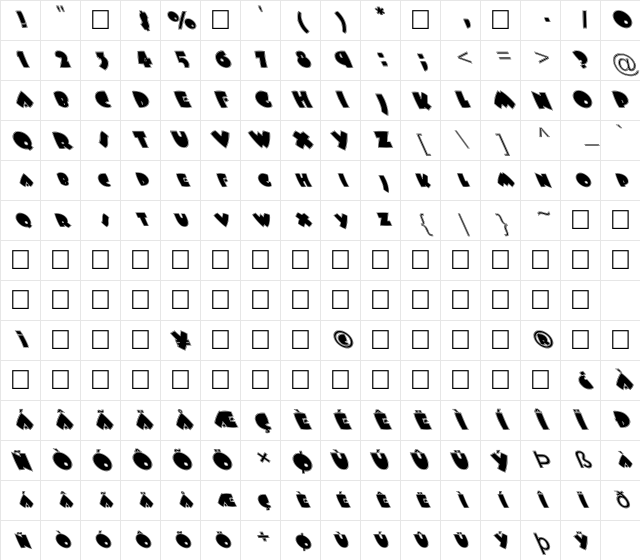
FZ JAZZY 9 CONTOUR LEFTY Normal
Complete FZ JAZZY 9 CONTOUR LEFTY Normal glyph index. Displaying only characters natively supported by FZ JAZZY 9 CONTOUR LEFTY Normal font.
Design Context for FZ JAZZY 9 CONTOUR LEFTY
FZ JAZZY 9 CONTOUR LEFTY is a composed and adaptable typeface that performs quietly and consistently across a wide range of design contexts.
Pro Tip: Use FZ JAZZY 9 CONTOUR LEFTY in both headline and body roles to test its range before committing to a single application.